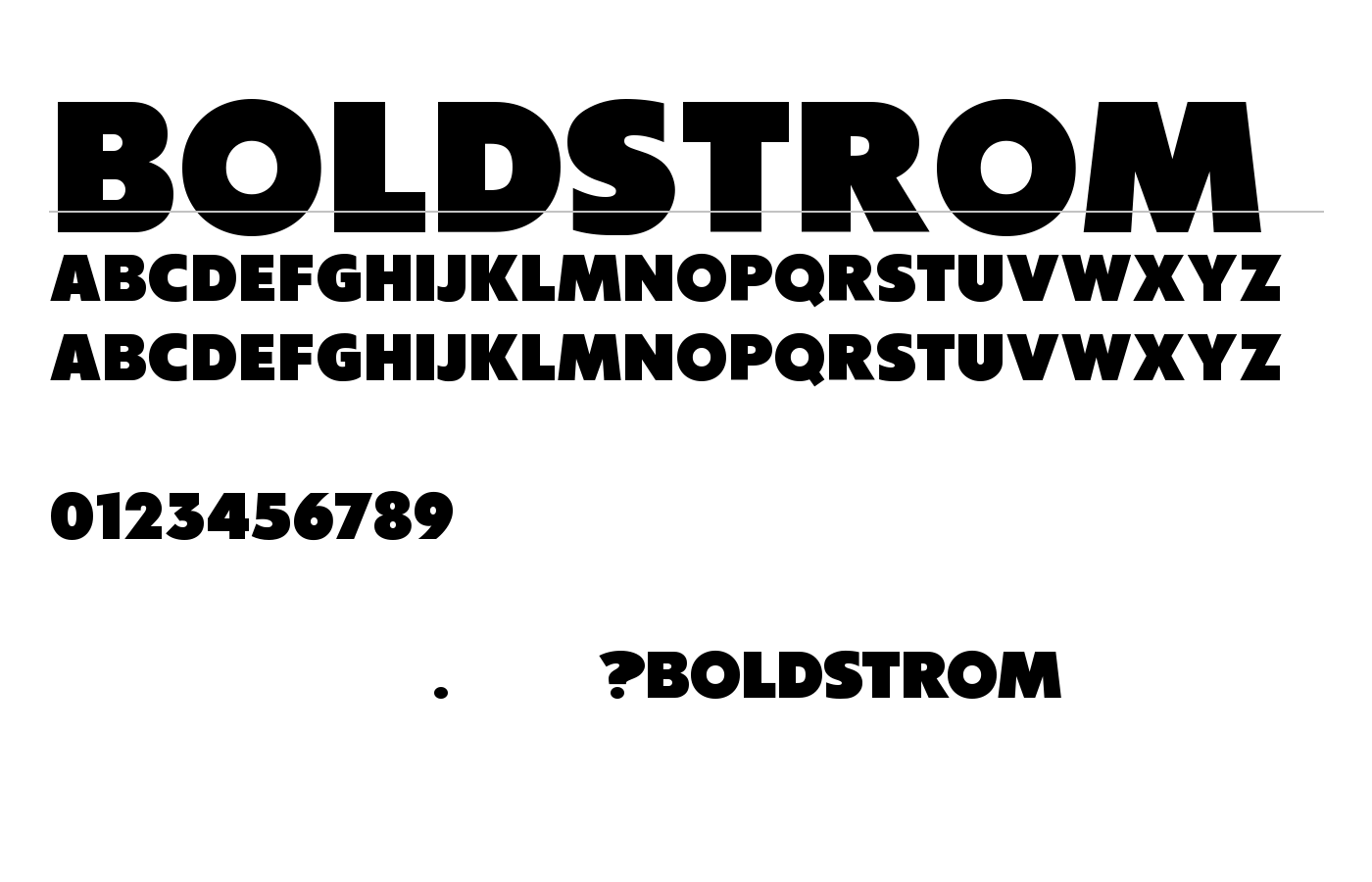
Boldstrom is a strong, bold sans serif font with a sturdy, geometric feel and high-impact presence. Its thick strokes, wide letterforms, and clean lines make it ideal for attention-grabbing headlines, logos, and branding that demand confidence and clarity. This font works best in display uses where boldness and legibility are key, giving designs a modern and powerful personality.
Boldstrom Font
About Boldstrom Font
| Font family | Boldstrom Font |
| Designer | Sharkshock |